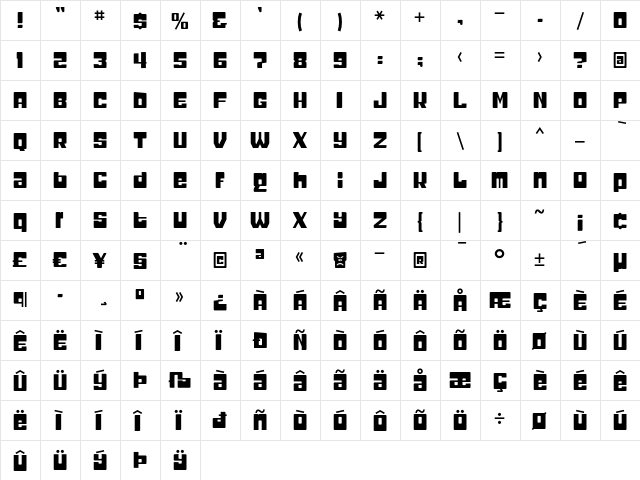
Headcold Regular
| Foundry | Neil Summerour/Positype |
| Designer | Neil Summerour |
Design Context for Headcold Typeface
Headcold is a composed and adaptable typeface that performs quietly and consistently across a wide range of design contexts.